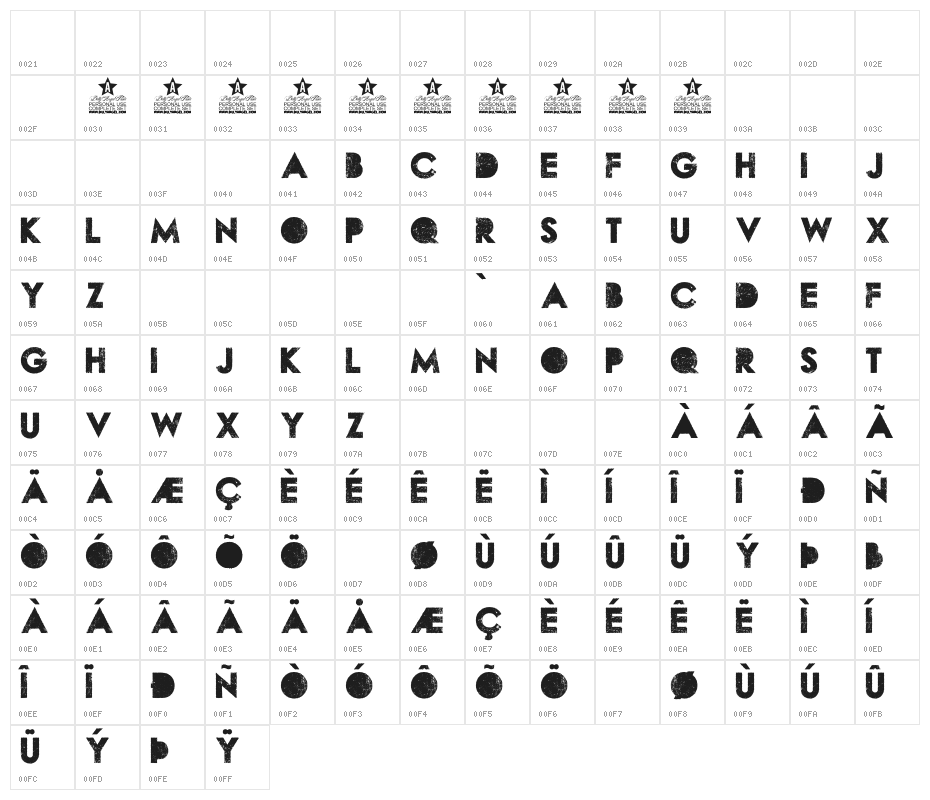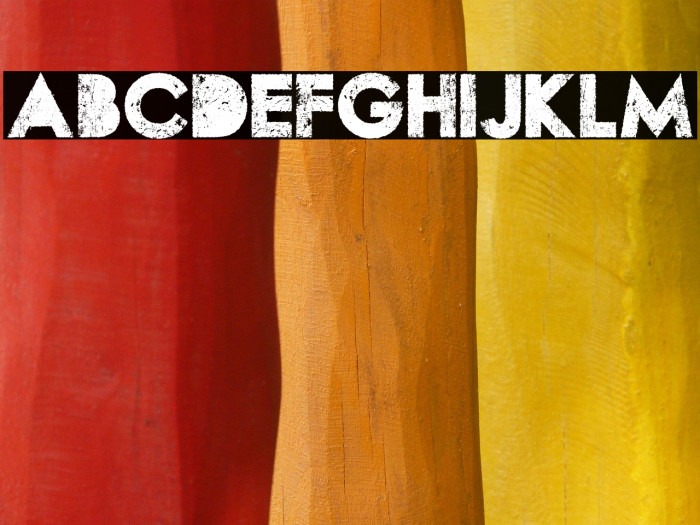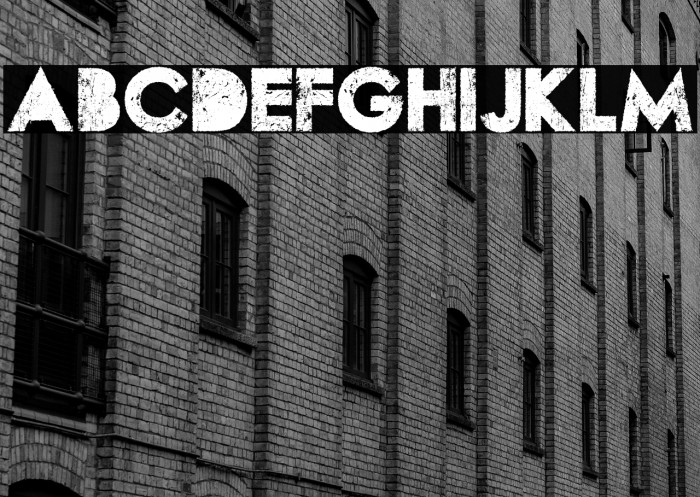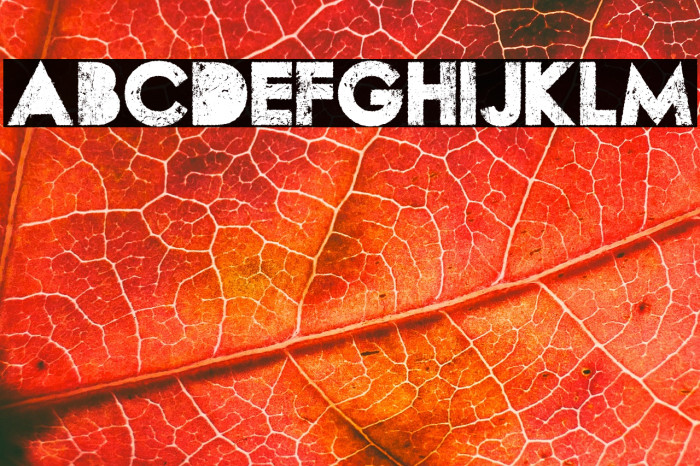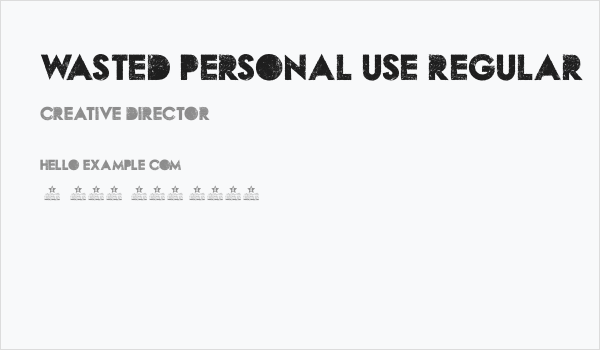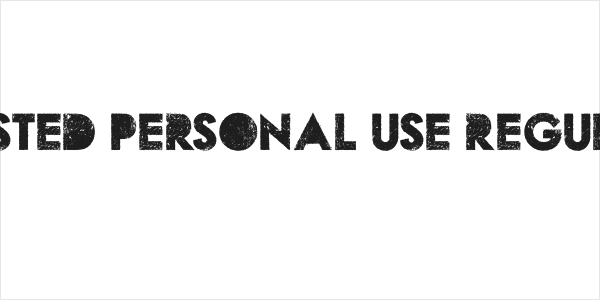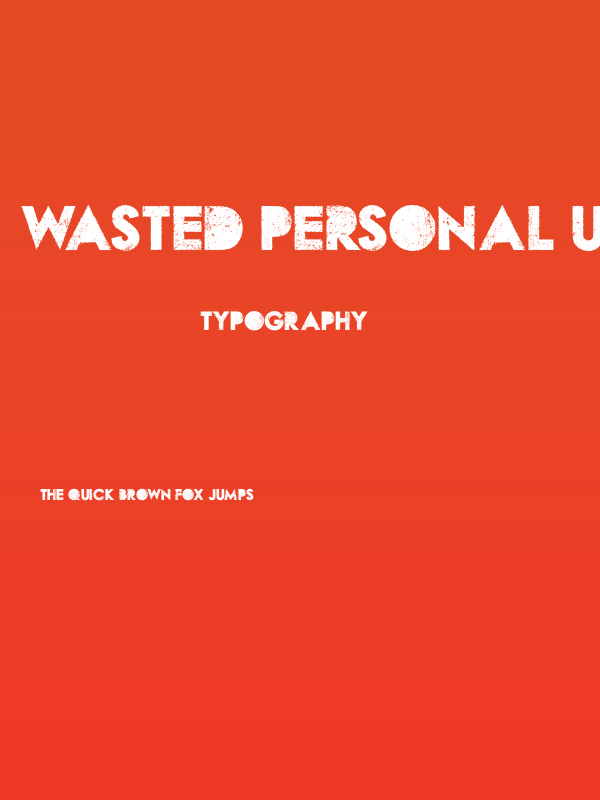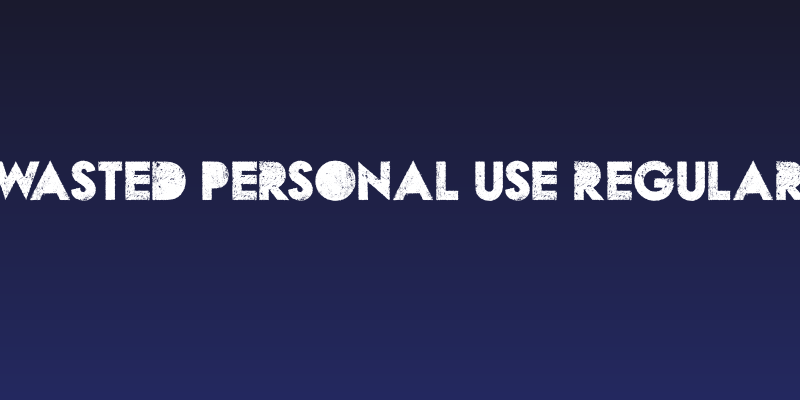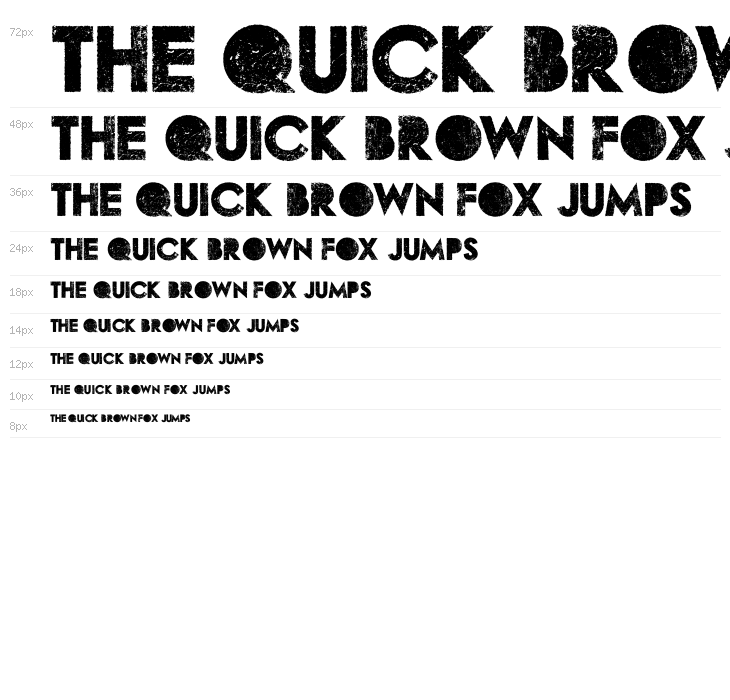
WASTED PERSONAL USE Regular Font
WASTED PERSONAL USE Regular Description
This font features a bold, distressed style with a textured, grunge appearance. The letters are uppercase and have a rough, uneven surface that gives them a worn, vintage look. The design is highly decorative, making it suitable for projects that require a strong visual impact. The characters are wide and have a substantial presence, with consistent spacing that maintains readability despite the distressed effect. This font is ideal for creating eye-catching headlines, posters, and other graphic designs that benefit from a bold, edgy aesthetic.
| Proposed Projects | Ideal for posters, album covers, and edgy graphic designs. |